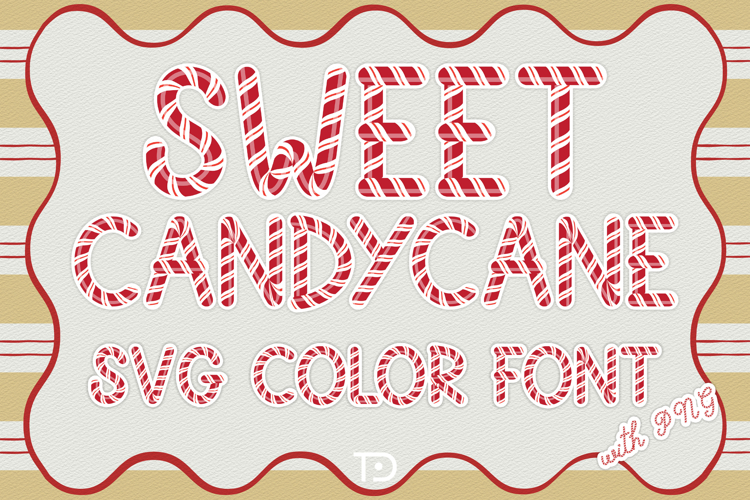
Sweet CandycaneSVG font is a fun and festive display font. It will look fantastic on all your Christmas-themed designs including t-shirt designs, mug designs, digital designs, crafts, cards, and any projects!